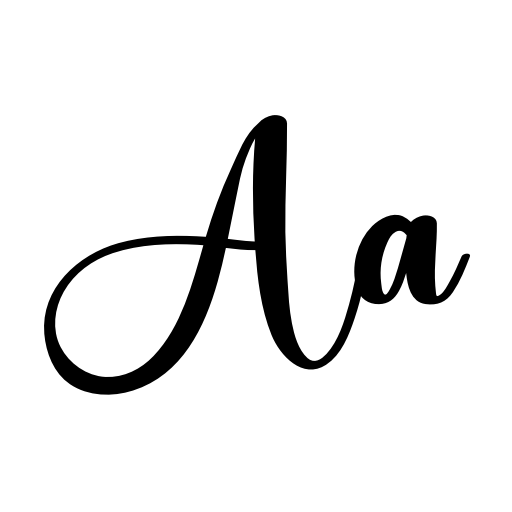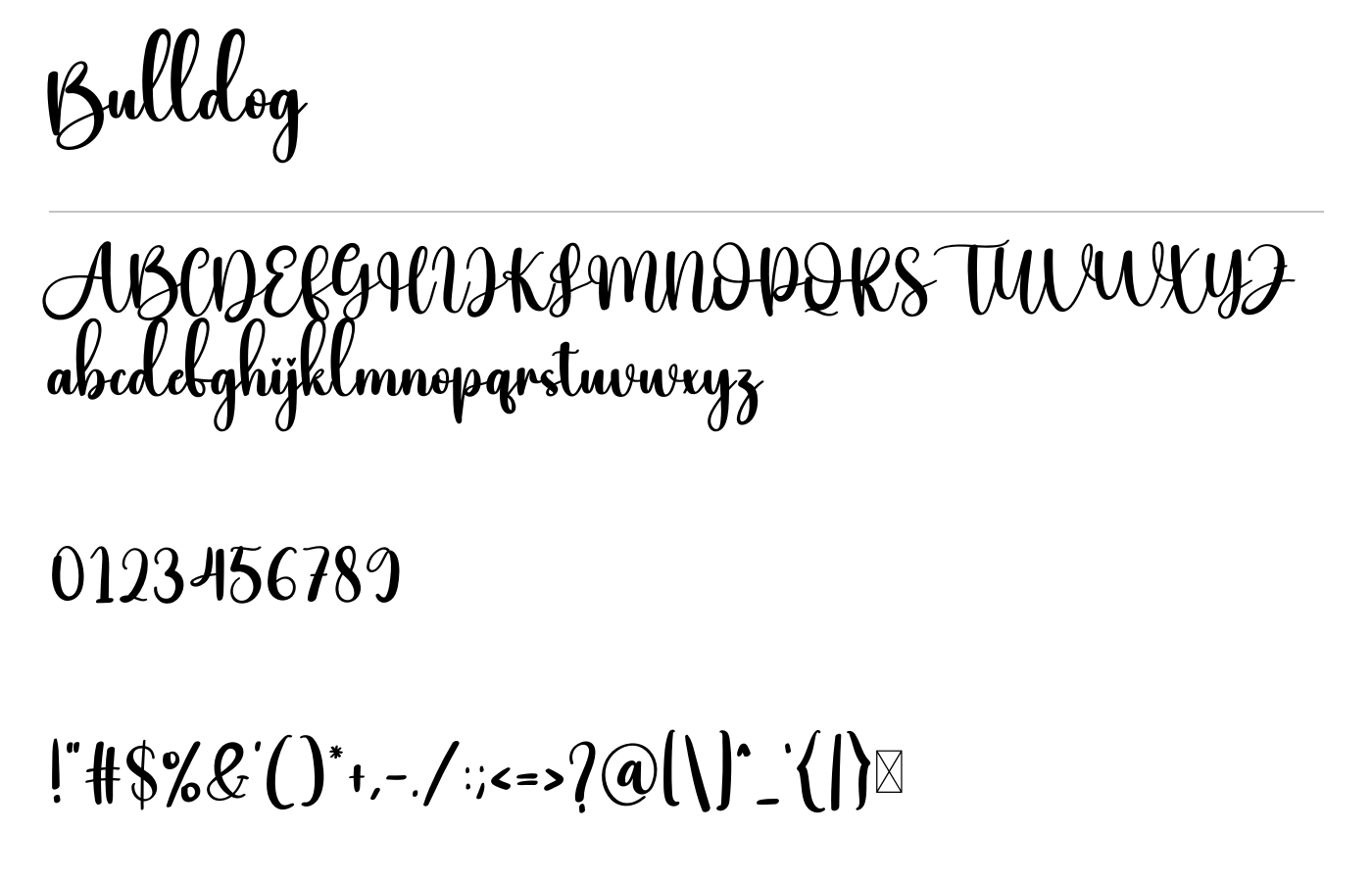
Bulldog is a lively and elegant script font with a smooth, hand-drawn feel. It features bold, fluid strokes with a subtle contrast in thickness and charming loops, making it perfect for creative branding, invitations, and playful headlines. Its friendly and stylish character brings a personal, approachable touch to any design.
Bulldog Font
About Bulldog Font